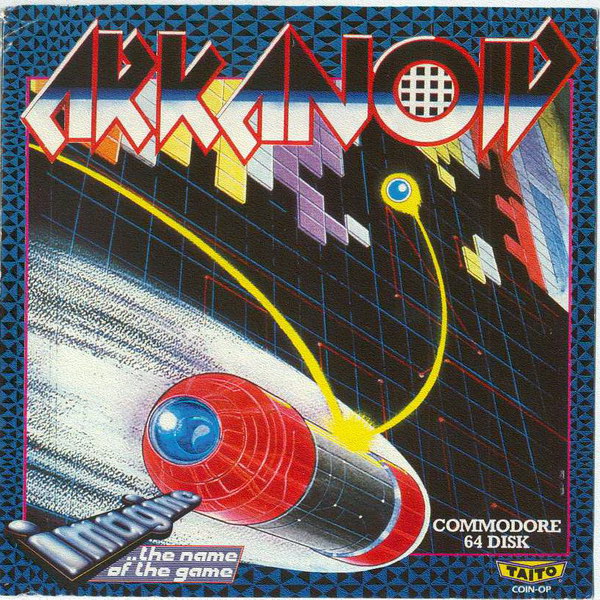
Arkanoid Font
Action & AdventureArkanoid is a classic arcade game developed by Taito Corporation and released in 1986. It is a block-breaking game in which the player controls a spaceship that bounces a ball back and forth to destroy blocks on the screen.
The Arkanoid font is used in the Arkanoid logotype which is available in two styles, the solid and the outline style. Both are available in capital letters only.